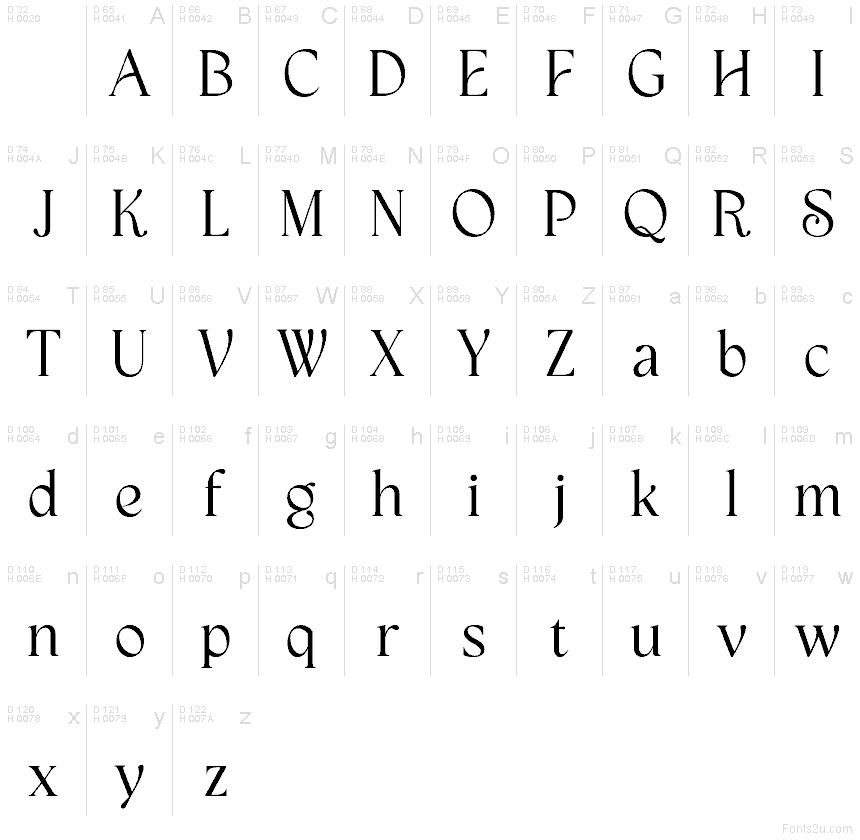
CS Sargent Regular Demo
CS Sargent font by Craft Supply Co. is a free vintage serir font. Built around sculpted swashes and inky, high-contrast strokes, it coils its terminals into elegant spirals without losing readability. The hairline thins tuck into sturdy stems, giving each word a poised, gallery-quality finish—ornate, but not fussy.
Using CS Sargent, headlines glide with a calligraphic lilt that shines on packaging, boutique logos, event invitations, magazine covers, wine labels, and beauty branding. The spacing feels generous, so it scales beautifully for large hero type and refined monograms. Pair this free font with a quiet humanist sans for body copy, or let it solo with ample letterspacing for a luxurious, airy look.